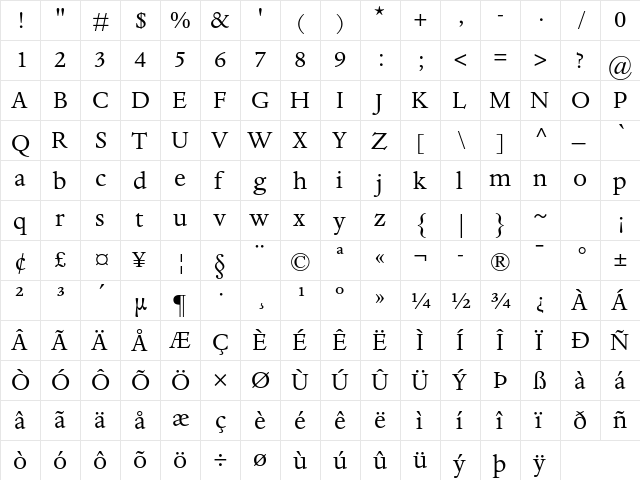
Dante eText Regular
| Foundry | Monotype Imaging Inc. |
| Designer | Monotype Design Team |
Design Context for Dante eText Typeface
Dante eText offers clean, dependable letterforms without strong stylistic allegiance, making it a practical choice for designers who need flexibility.
Pro Tip: Use Dante eText in both headline and body roles to test its range before committing to a single application.